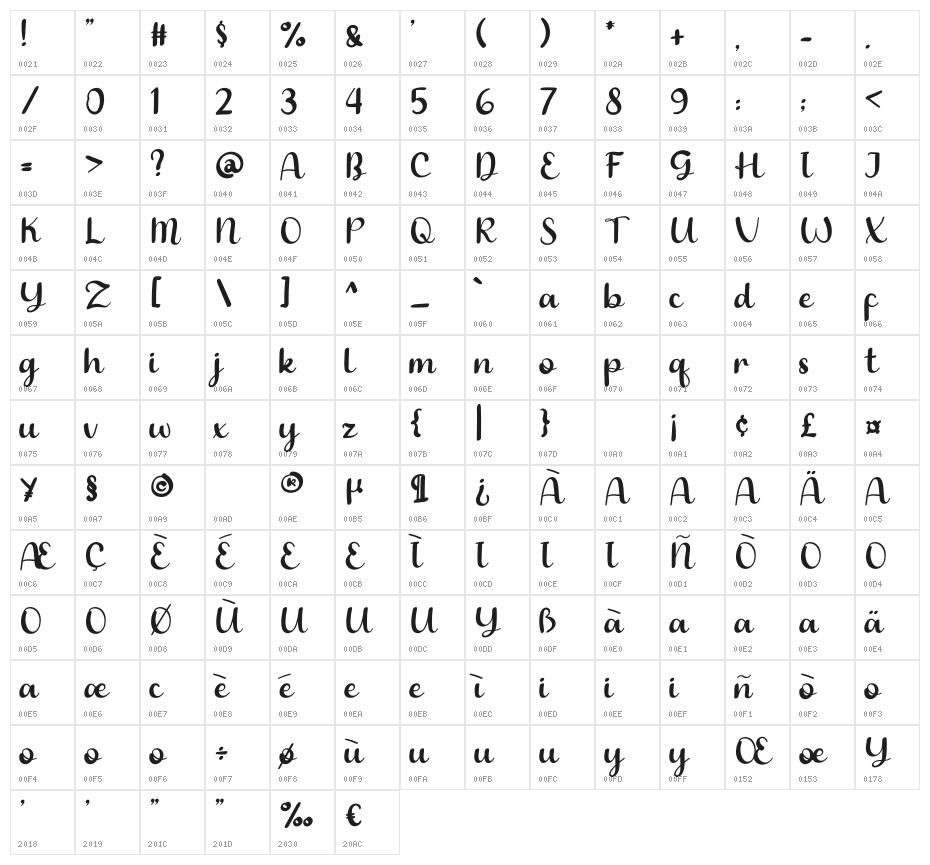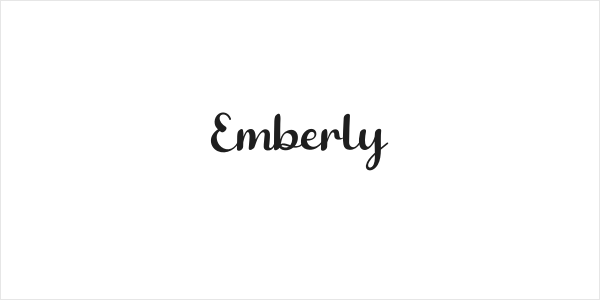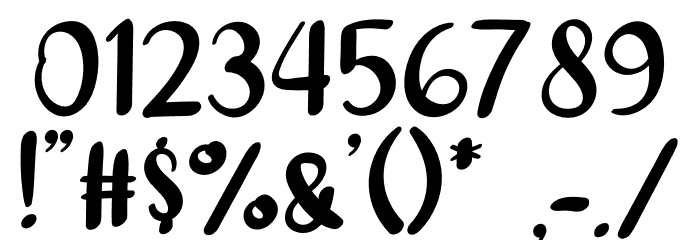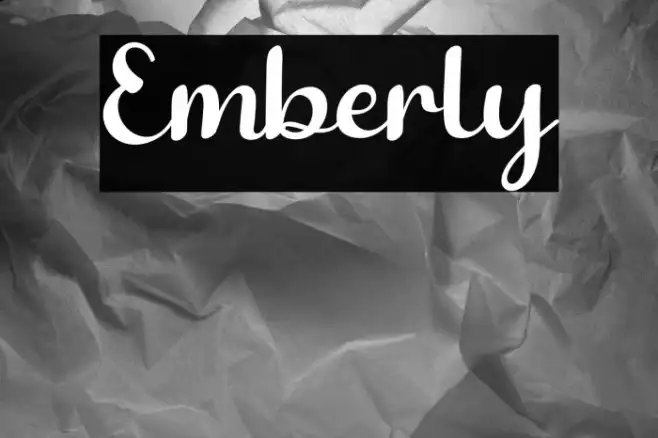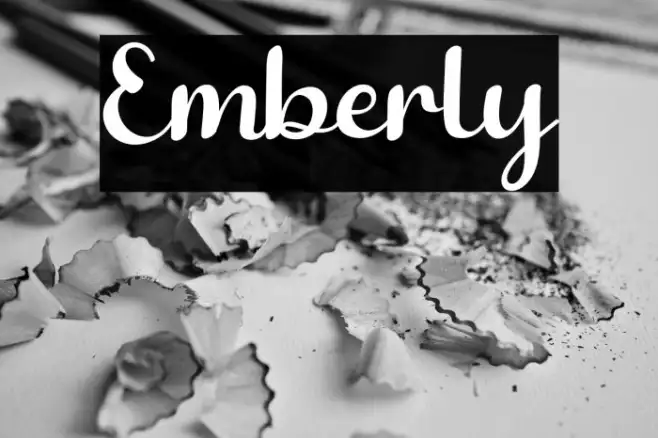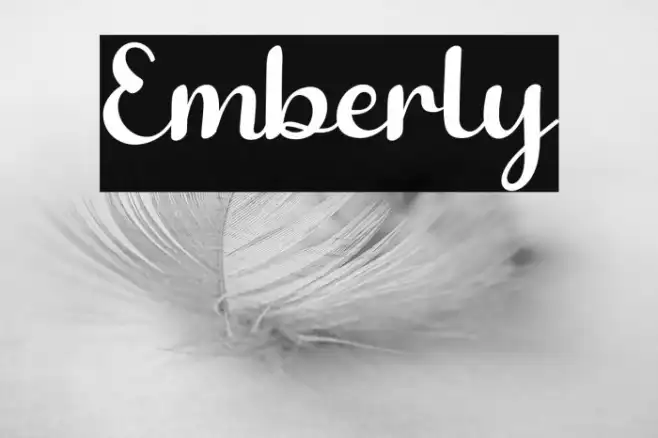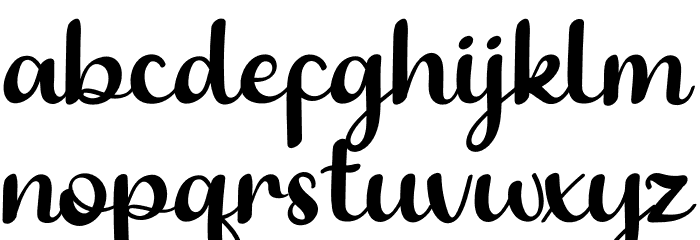
Emberly Font
Emberly Description
This font features a playful and elegant script style with a smooth, flowing appearance. The uppercase letters are distinct with a slight slant, giving them a dynamic and lively feel. The lowercase letters maintain a consistent rhythm, enhancing readability while preserving the font's whimsical charm. Numbers and special characters are crafted with the same attention to detail, ensuring a cohesive look across all text elements. The font's strokes are moderately thick, providing a balanced contrast that is neither too bold nor too light, making it suitable for various design applications.